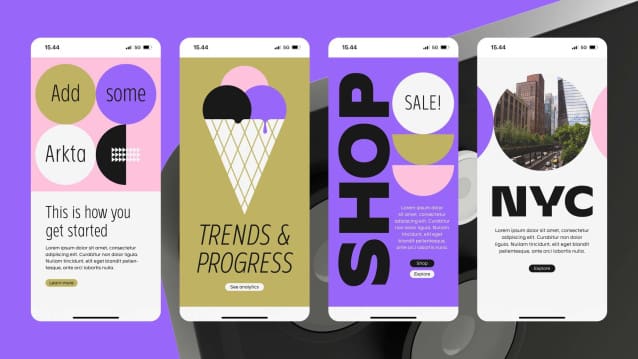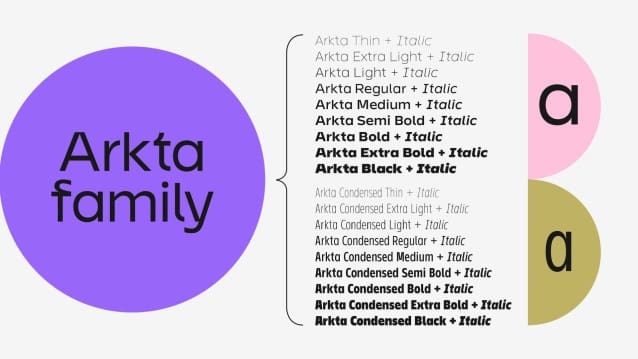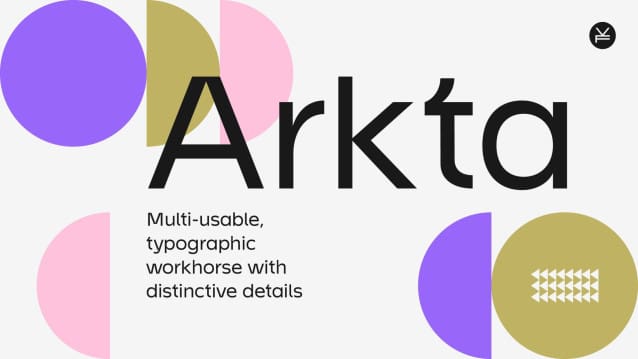
Arkta Font Family
Arkta Font Family, designed by Jaakko Vanto, is a versatile sans serif font family featuring a relatively large x-height. This typeface is a true typographic workhorse with distinctive details. To offer flexibility for diverse design applications, the Arkta font family currently includes Arkta and Arkta Condensed. Whether you’re crafting engaging web content, elegant editorial layouts, or impactful branding materials, Arkta provides the flexibility and style you need.